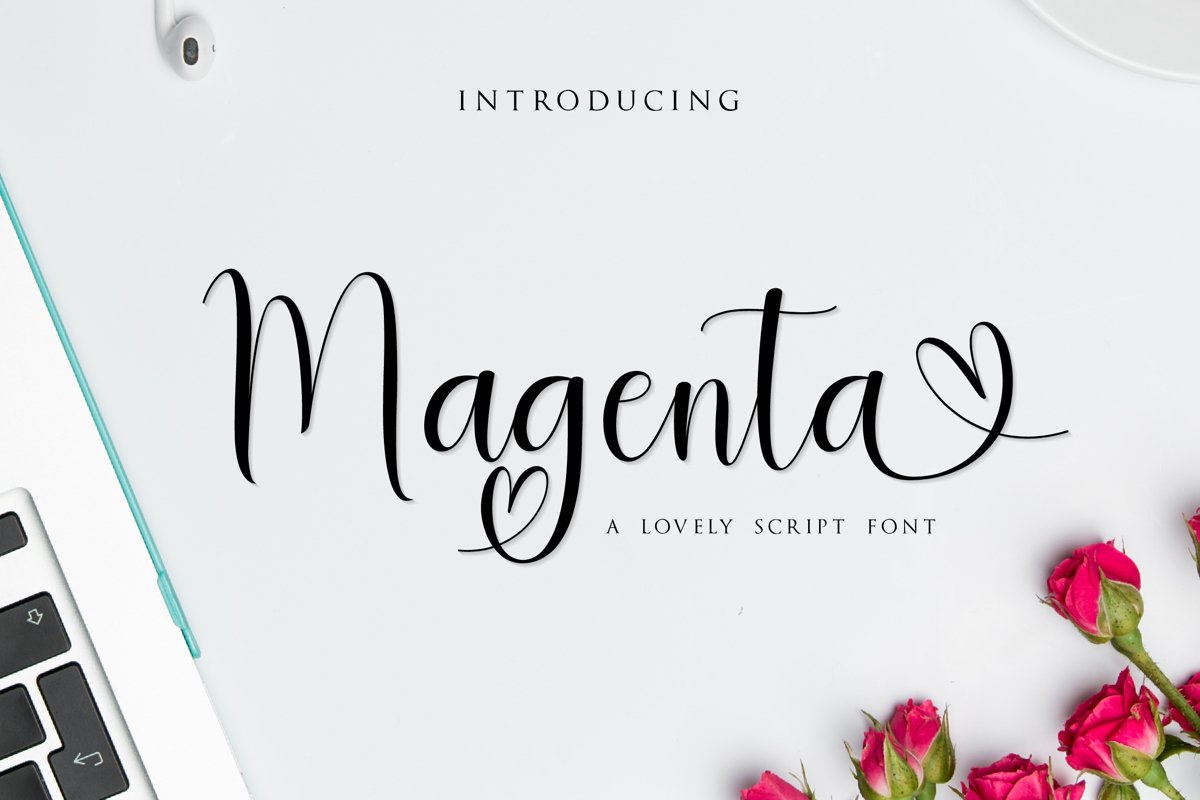
To you introduce a new style of Magenta Script script calligraphy modern thick and thin and precise connection original style in an elegant, font can be used easily and safely with application Good and smart as Adobe Illustrator CS, Adobe PS Adobe Indesign and CorelDraw X6-X7 , Microsoft Word 2010 or newer. strongly supports the work you activate OpenType Access.Magenta Script Font incorporated in OpenType comes with a lot of flying machines 660 Included among fantasy Stylistic Alternates, Stylistic Sets & ligature ligatures many wonderful connections to make your writing well ordered. File includes: Magenta Script.otf Magenta Script.ttf. This font reviewed in accordance with the growing market today, with a form of cursive typeface design style is soft, you can mix with fun and feel feminine. Trendy and a wonderful way to highlight your best party celebration, because supporters like wedding invitations, parties, graduations, anniversaries, meetings, and other ...Thanks for looking, and I hope you enjoy !!! Feel free to drop me a message if you have any problems or questions. Letters of support: